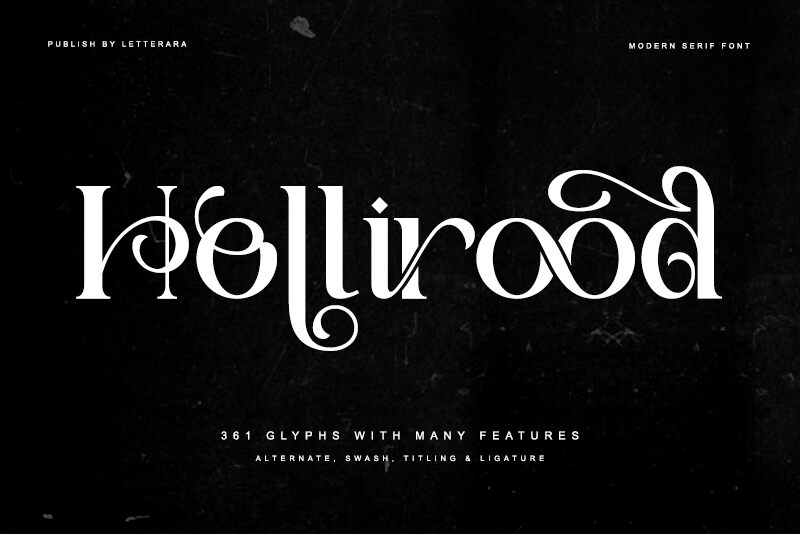
Hollirood emerges as a display typeface crafted by the skilled hands of Letterara, exuding a retro charm that seamlessly blends elegance with versatility. With its crisp and clean lines, this retro serif font is engineered to add a touch of sophistication to a plethora of creative projects. Its suitability spans from the creation of luxury logos and high-end branding materials to the finesse needed in classy editorial designs for magazines and packaging.
Hollirood's adaptability doesn't end there; envision it gracing movie posters, elevating cosmetic brands, or setting the tone in fashion promotions. It's also perfectly at home within the cultivated environments of art gallery branding. A notable feature is its PUA encoding, ensuring you have full access to all the nuanced glyphs required to craft compelling messages. Hollirood stands as an essential asset for designers aiming to impart an aura of exclusivity and timeless style into their work.